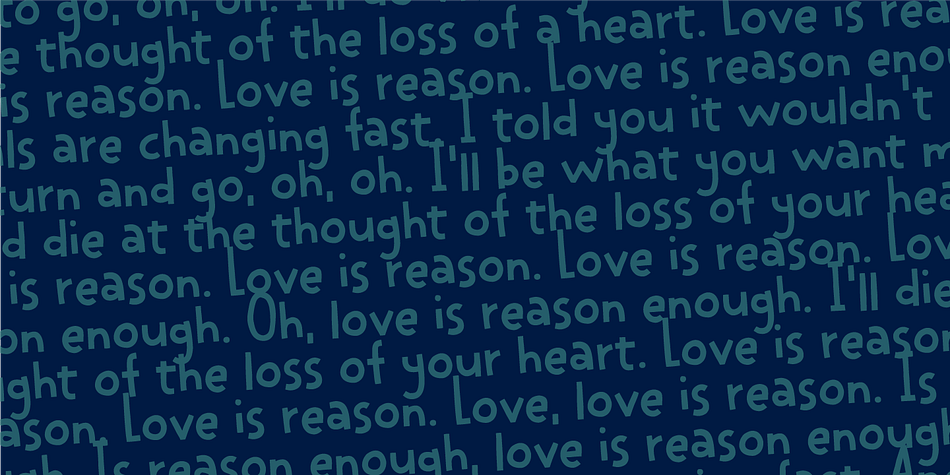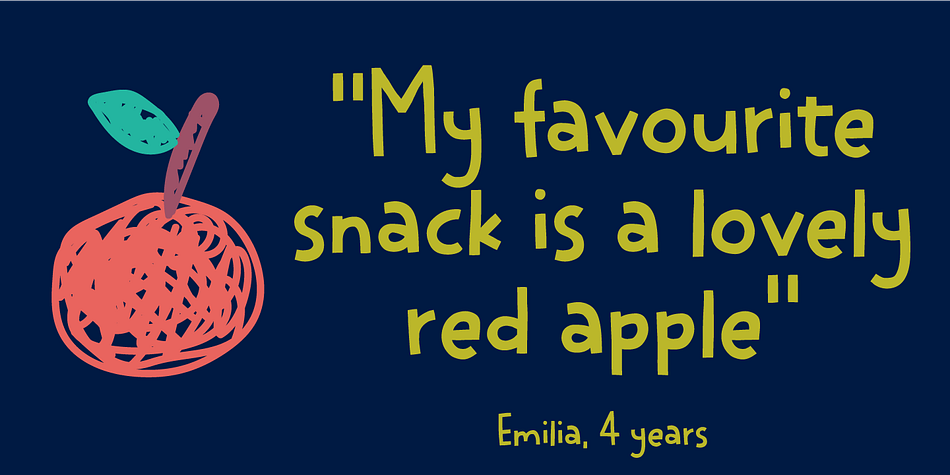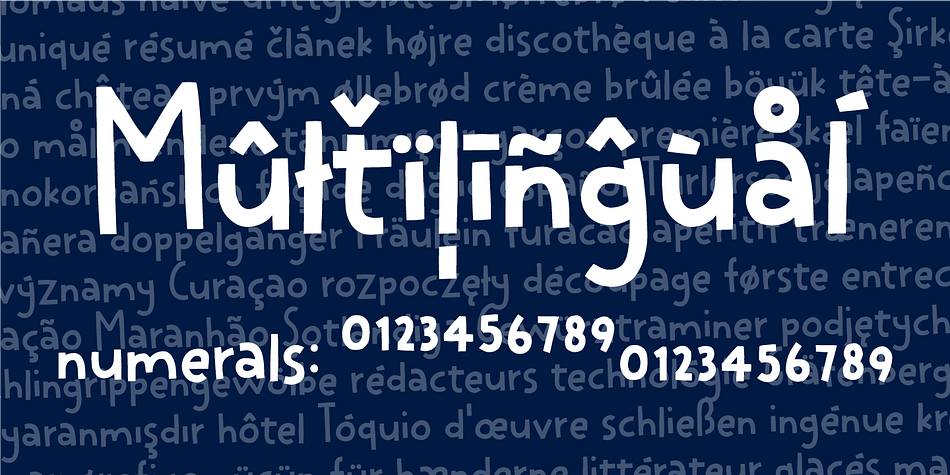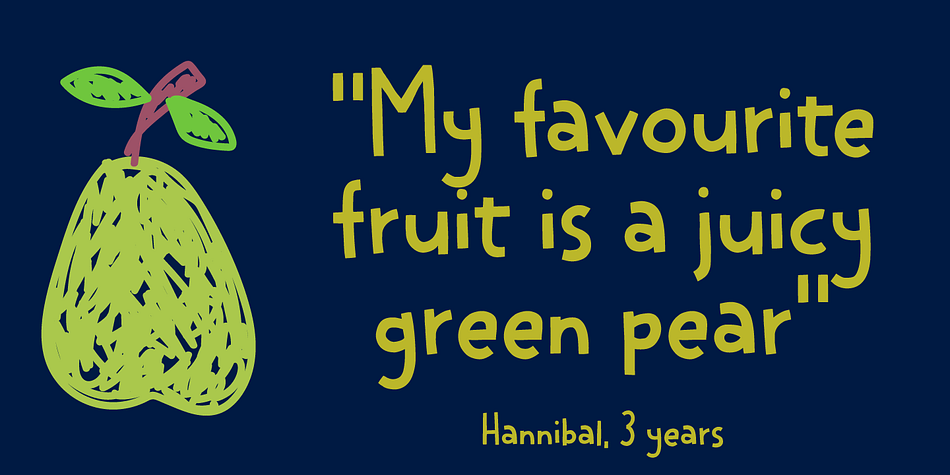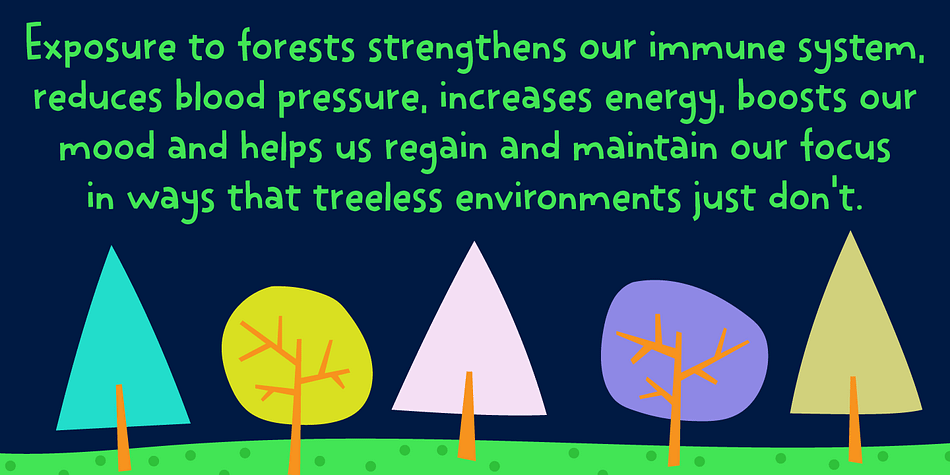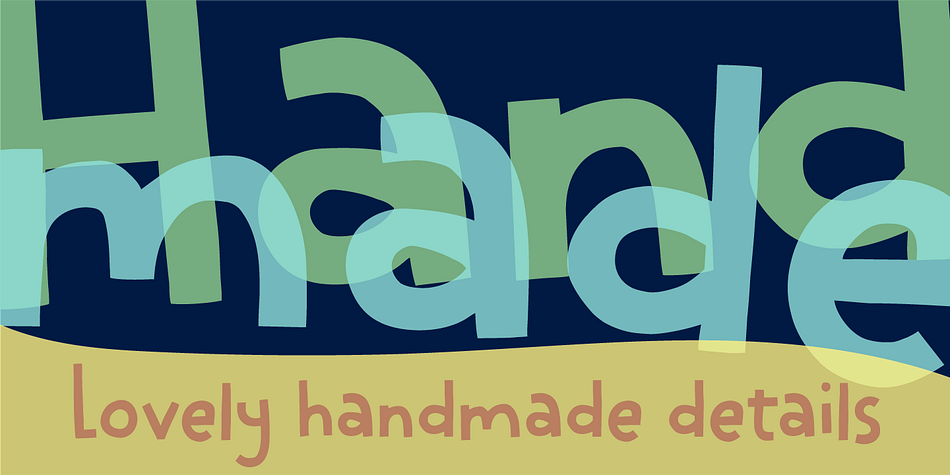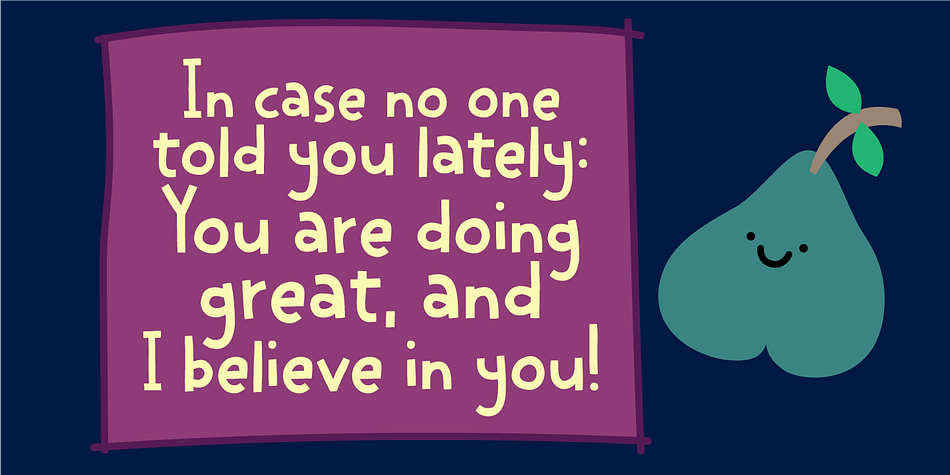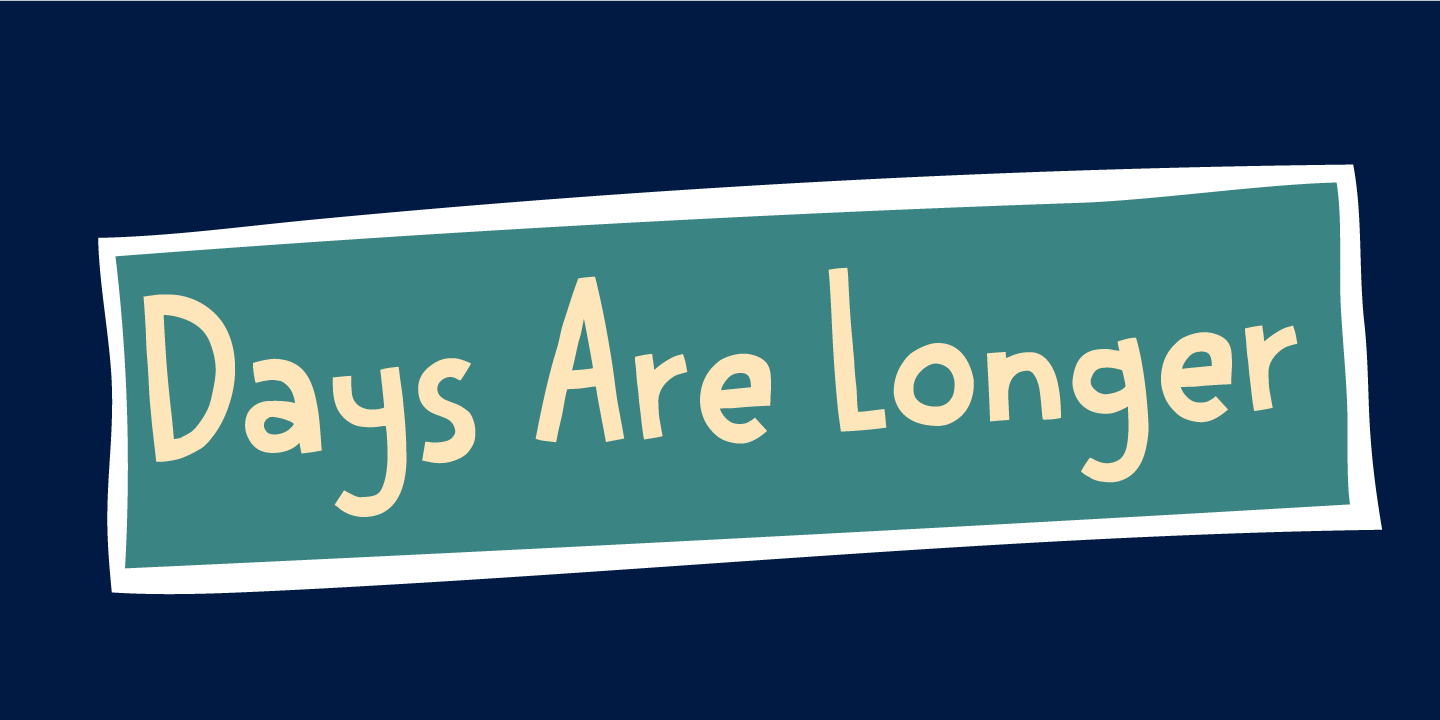
Days Are Longer
Designed by Jakob Fischer, Days Are Longer is a display sans, hand drawn and kids font family. This typeface has two styles and was published by Pizzadude.dk.
Days are beginning to get longer! Spring is on its way, and I love it!
Springtime can be surprisingly mild and warm, and my font “Days Are Longer” is just like that! And even playful with a gentle twist of handcrafted warmth!